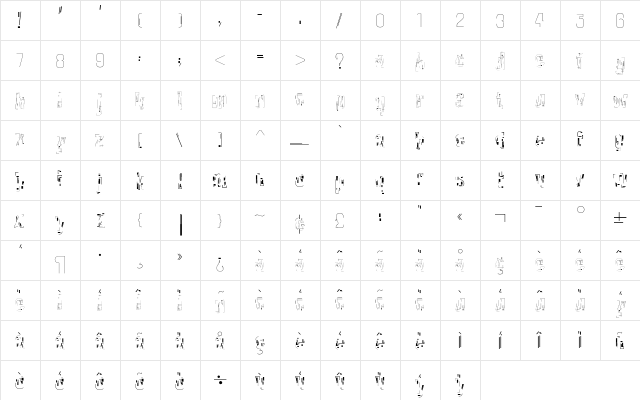
Instrument Regular
Design Context for Instrument Typeface
Instrument is a composed and adaptable typeface that performs quietly and consistently across a wide range of design contexts.